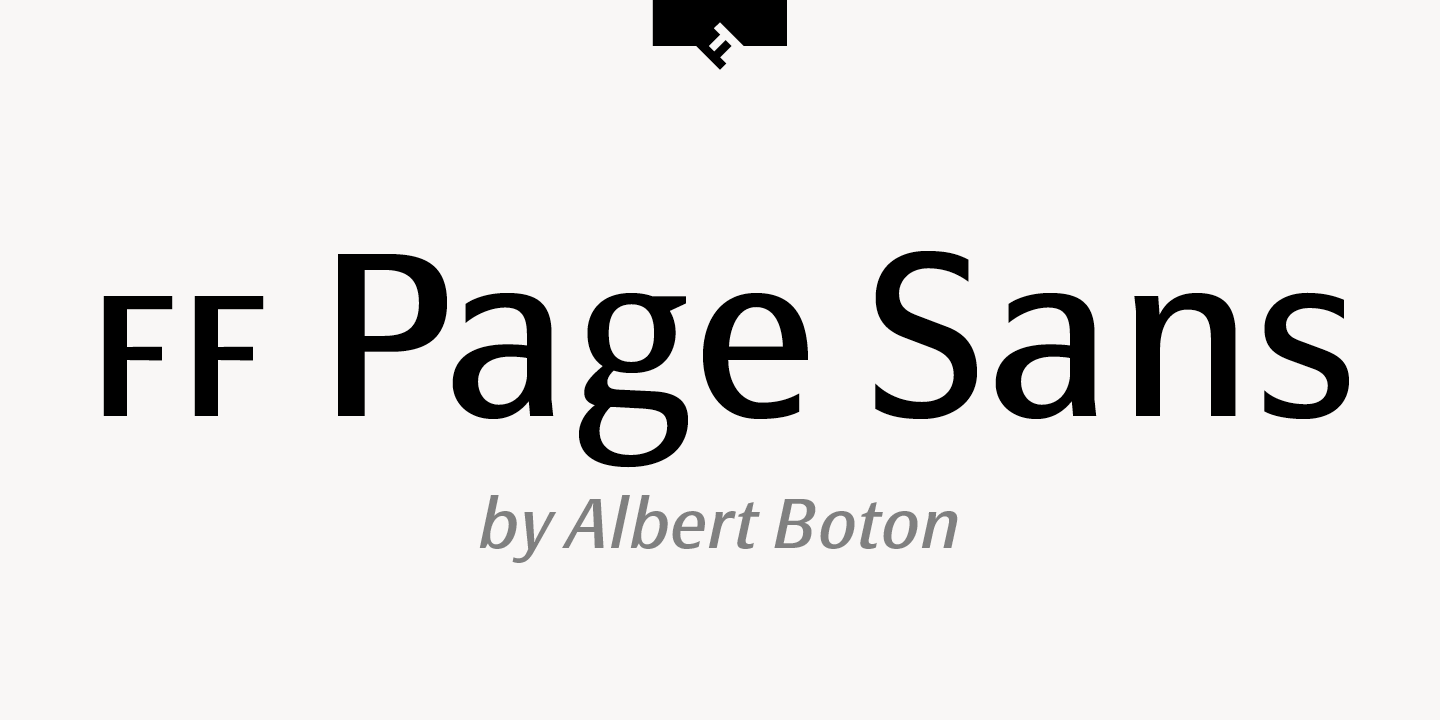
The FF Page Sans Font excels in various design applications including corporate branding projects, professional website design, technical documentation, annual reports, business presentations, user interface design, mobile app typography, signage systems, editorial layouts, and contemporary print materials that require clean, highly legible text solutions.
What makes the FF Page Sans Font exciting is its exceptional balance between functionality and aesthetic appeal. This typeface represents modern sans-serif design at its finest, featuring carefully crafted letterforms with optimized spacing and proportions that ensure outstanding readability across all media. The font's clean architecture and subtle personality make it incredibly versatile for both digital and print applications, while its technical precision appeals to designers who demand typographic excellence in professional environments.
The FF Page Sans Font family includes comprehensive weight variations from light to black, with corresponding italic styles that provide extensive design flexibility. These family options typically feature condensed and extended variants, along with specialized versions optimized for specific applications like screen display or small text sizes, ensuring perfect performance in any design context.
Design professionals consistently choose FF Page Sans Font Free Download for projects demanding reliability, clarity, and modern sophistication. This typeface performs exceptionally well in corporate communications, digital interfaces, and editorial design where legibility and professional appearance are paramount. The font's neutral yet distinctive character makes it ideal for brand identities seeking timeless appeal without sacrificing contemporary relevance. Download FF Page Sans Font Free Download today to experience this remarkable typeface that combines Swiss design principles with modern functionality, delivering uncompromising quality for your most important typography projects.